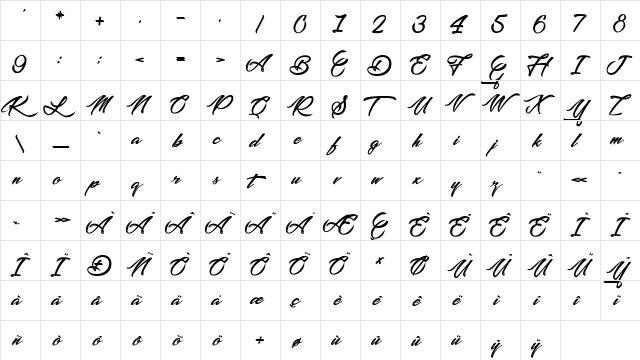
Picture of the Romantic Regular
| Foundry | Octotype |
| Designer | Octotype |
Design Context for Picture of the Romantic Typeface
Picture of the Romantic is a composed and adaptable typeface that performs quietly and consistently across a wide range of design contexts.